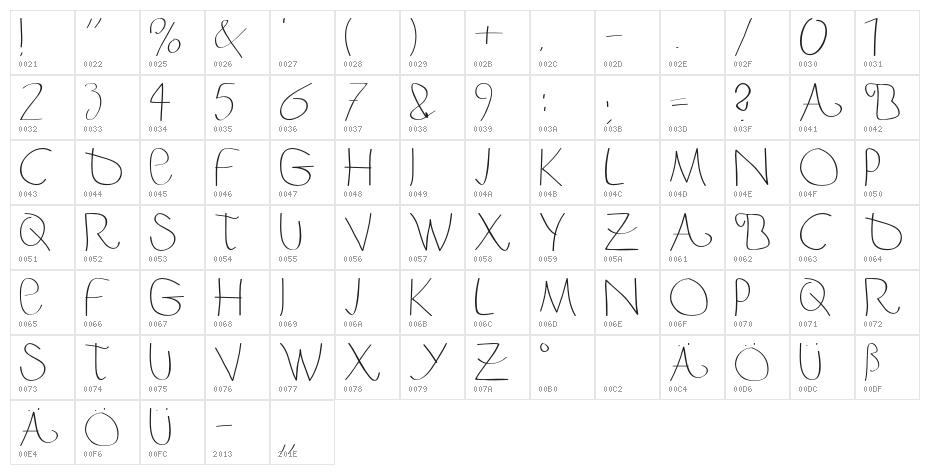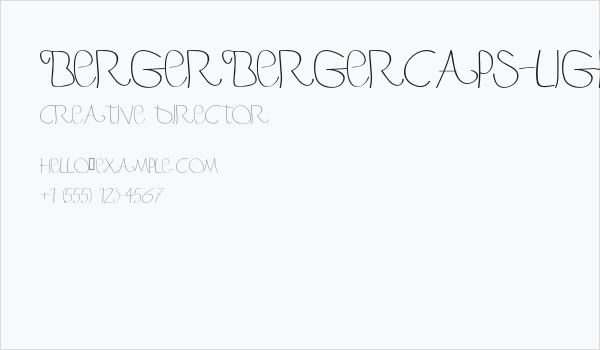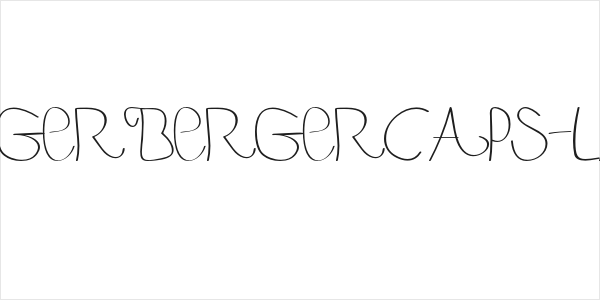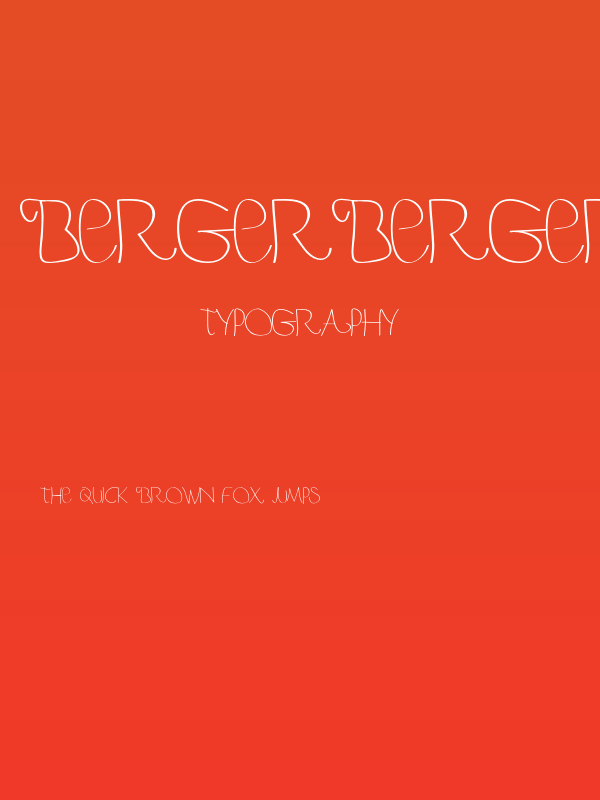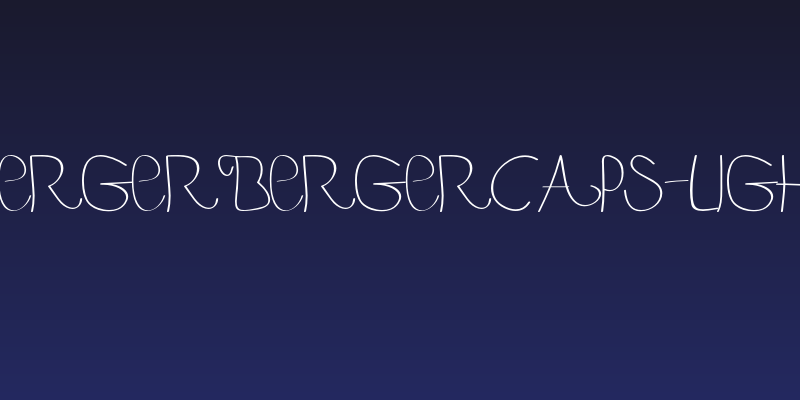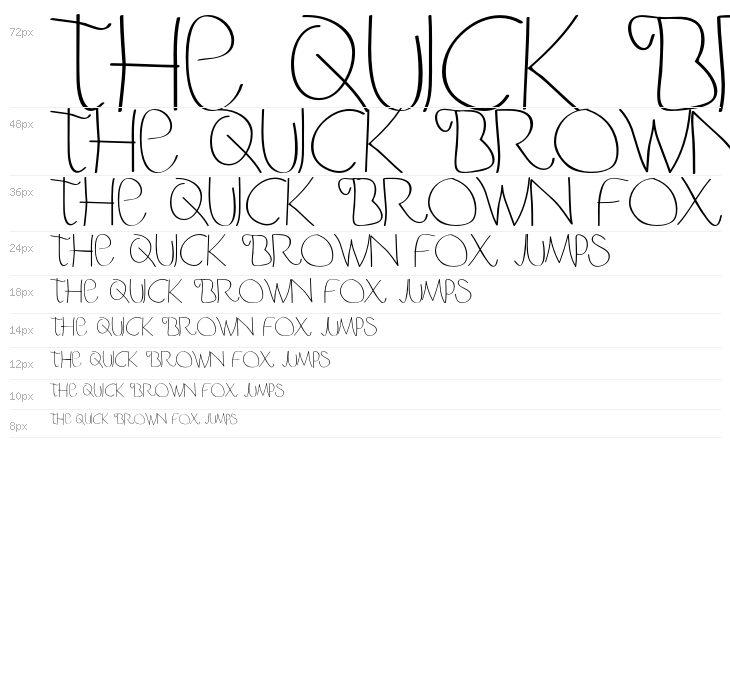
BergerBergerCaps-Light Font
BergerBergerCaps-Light Description
This font features a unique and artistic design, characterized by its flowing, cursive-like strokes that give it a whimsical and playful appearance. The letters are crafted with a combination of thin and slightly thicker lines, creating a dynamic and engaging visual effect. The uppercase and lowercase letters maintain a consistent style, with some characters incorporating loops and curves that add to the font's charm. The numerals and special characters follow the same design principles, ensuring a cohesive look across all elements. This font's distinct style makes it suitable for creative and expressive projects.
| Use Case | Headlines, Logos, Artistic projects |
| Proposed Projects | Ideal for creative projects such as invitations, greeting cards, artistic posters, and branding materials that require a playful and unique touch. |